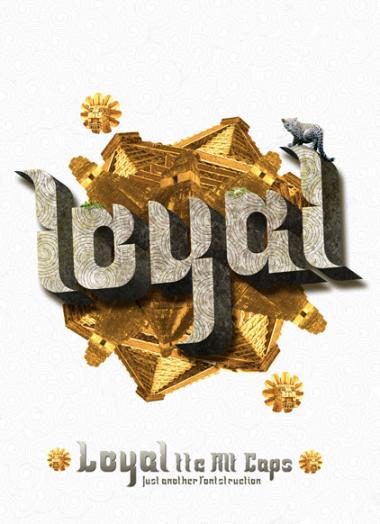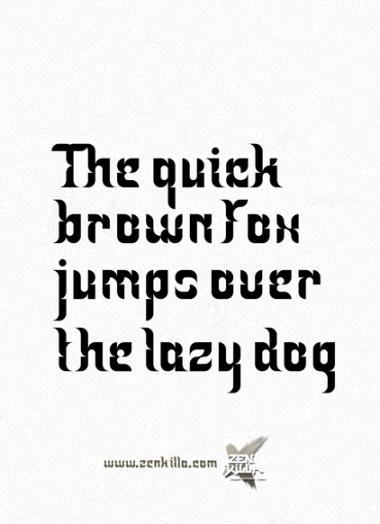
• Loyal TTC alt caps is the result of an experiment i did to create a typeface inspired by the Lloyd Font. But i derivate a lot :) Tell me what you think about it.
I like it very much. Some letters are just amazing. The sample text looks very good. It was a good experiment. Unfortunately, I couldn't find the "Lloyd Font" to fully gauge your achievement here.
i'm so far away from the original that i'm not shure that it's usefull to see it. But anyway it's gave me inspiration so here is the link that inspired me the loyal typeface.
it's so far away when i'm looking at the lloyd typeface now hihihi
Here are some pictures of Loyal ttc alt caps in use
just wonderful. especially the first sample looks gorgeous! well done
You are quite right, it's not even close. Sometimes it's hard to tell why a particular design inspires another one - I know it from my own experience. Superb demo pics. Congratulations. 10/10
Great capitals and another classy demo pic.
a great font with some great samples - got to be worth my 10 :)
That's really nice. If you have suggestions to improve this typeface just tell me !
Wow! nice original Design
Fancy font... the harmony between Uppercase And Lowercase is perfect
Also awsome sample! witch make us realize all the power of the design
Another perfect example of how a good demo pic can really sell a font, and show so much more of the designer's intention than just the b/w preview. You samples are simply superb and give the font a ornamental/exotic dimension that I would never have recognised to that extent otherwise...
Hey thanks shasta! I've spend a lot of time on this sample and tried to use loyal ttc in real situation before i give it. I'm happy you love it!
@Upixel i've just use an illustrator trick to make the 3d feeling (effect / 3D / bevel and emboss) and put some texture using photoshop. If you want i can find some tutorial for this!